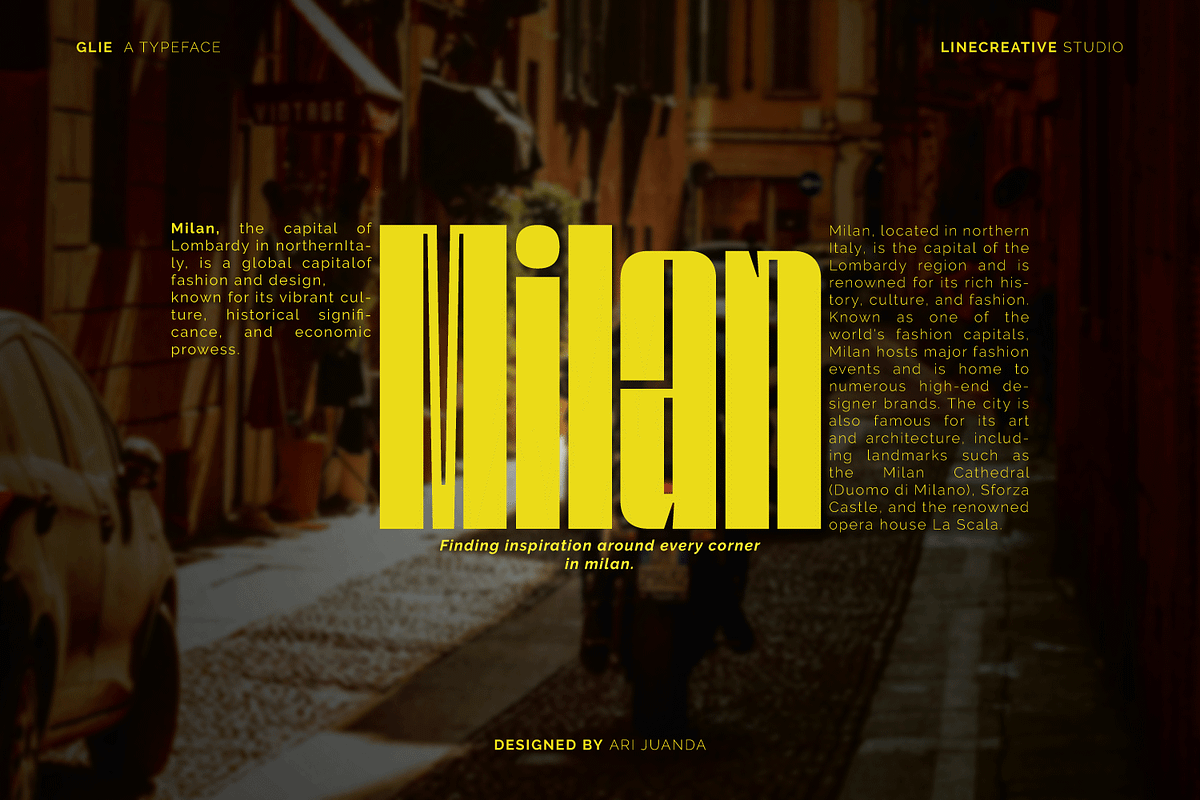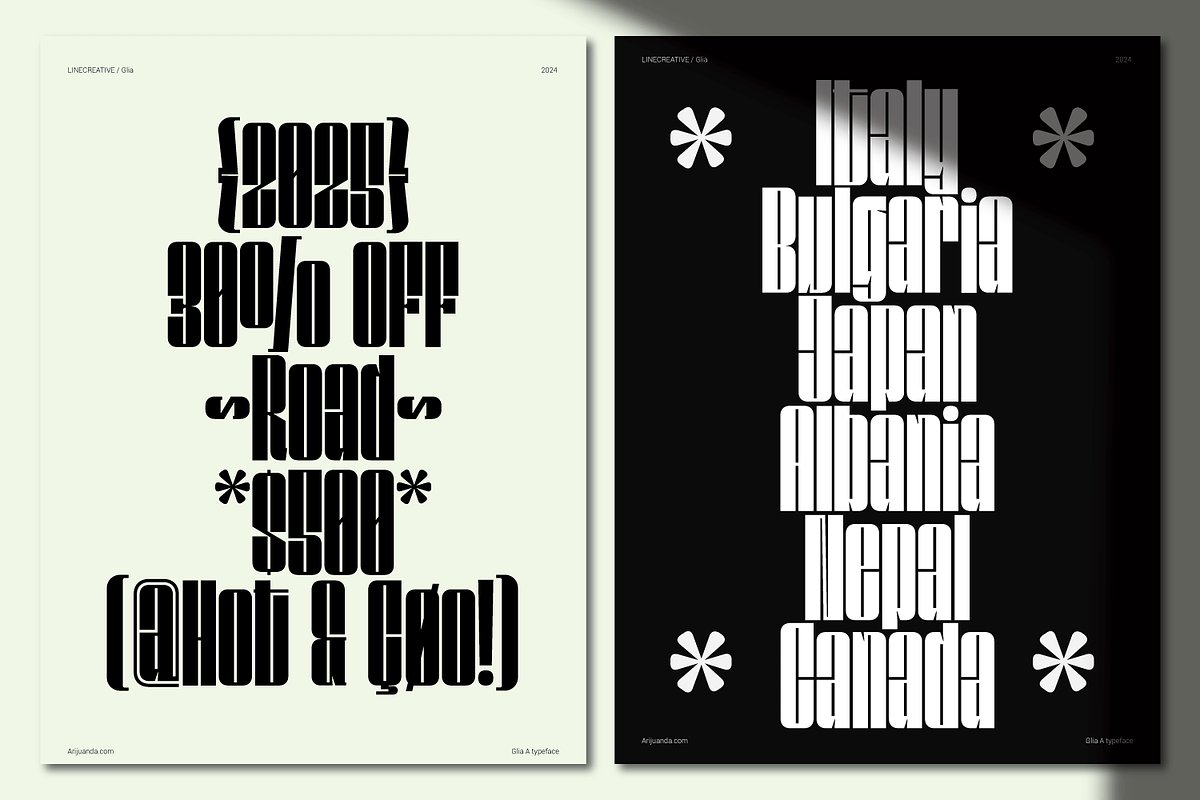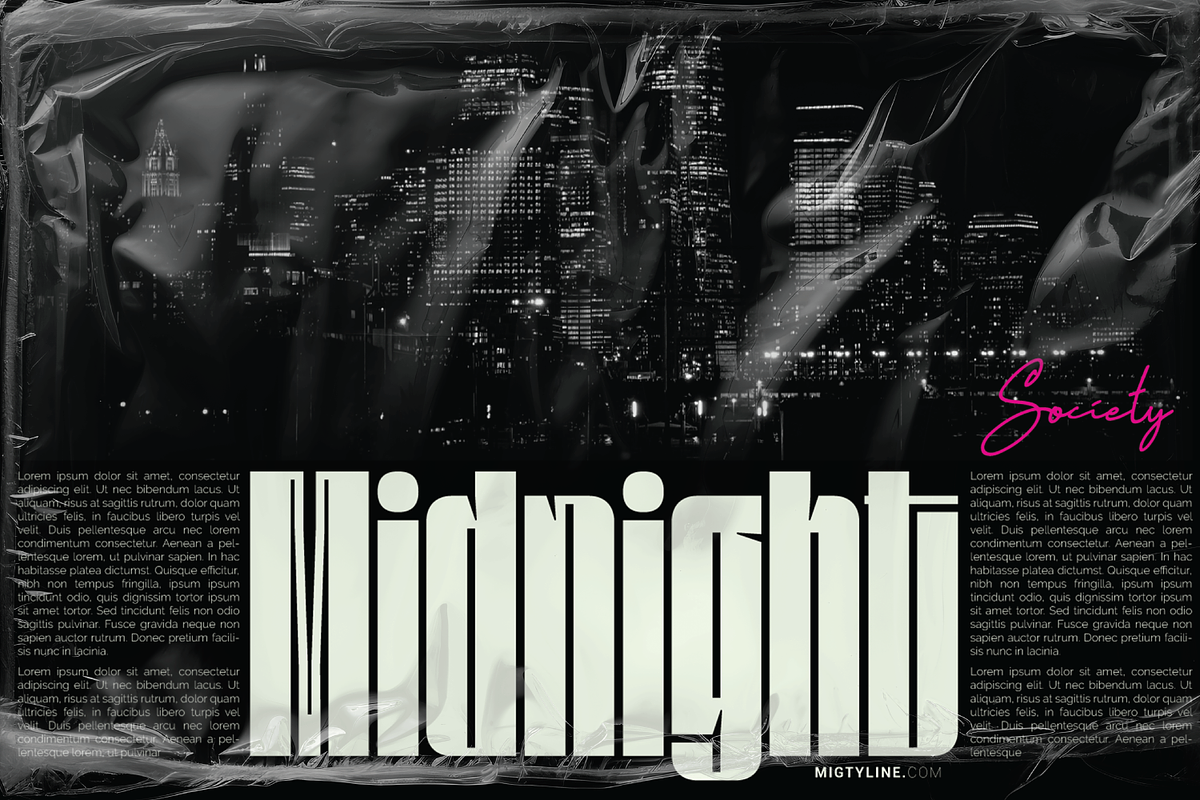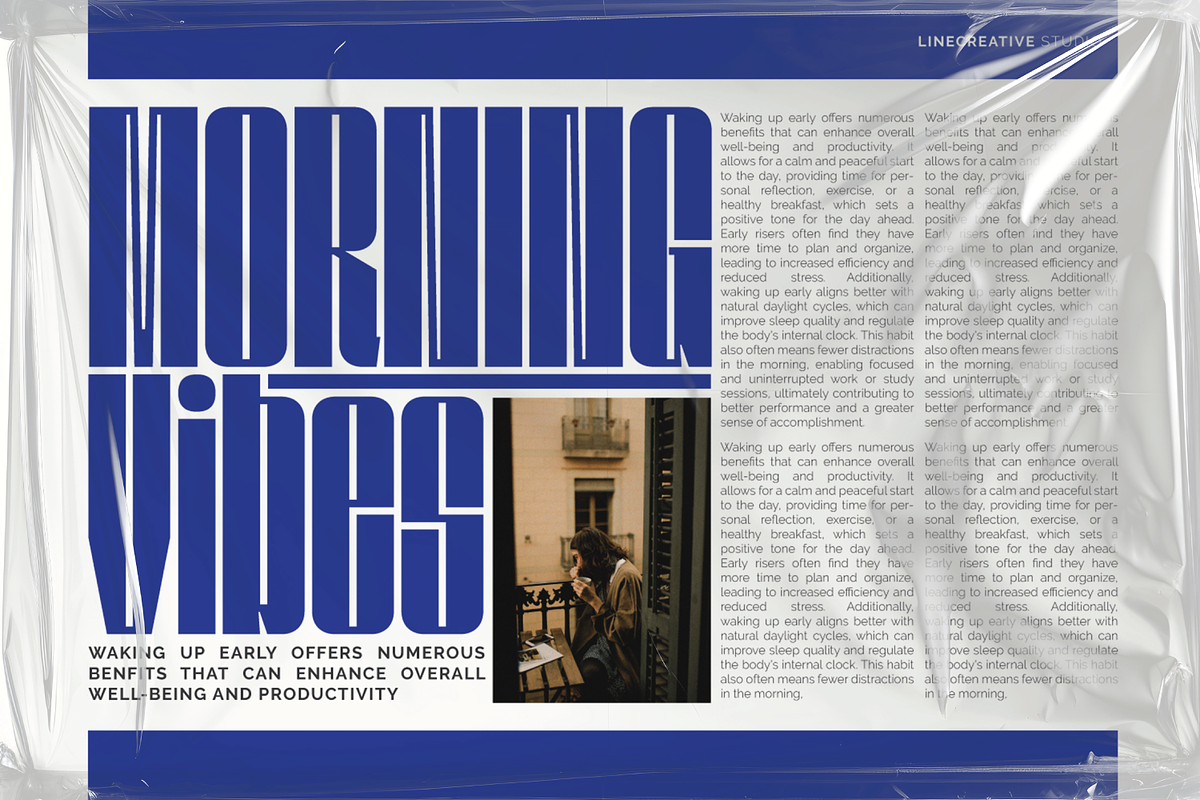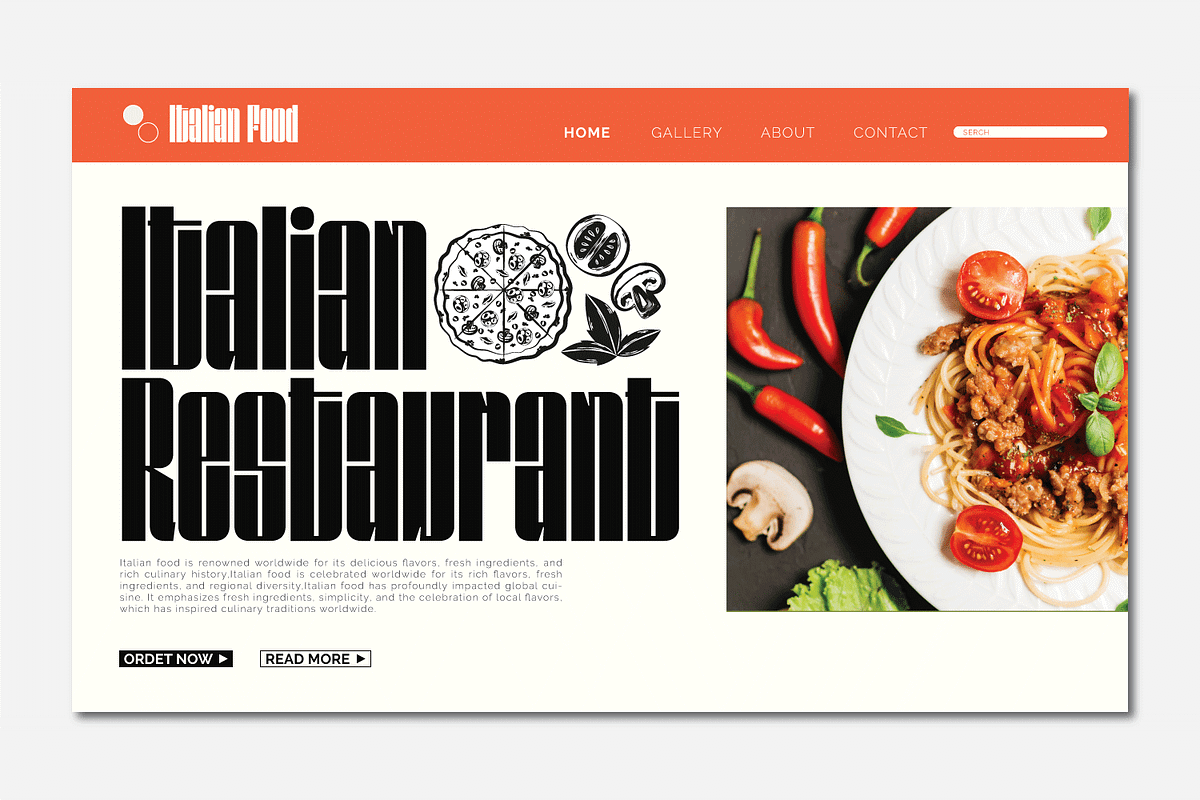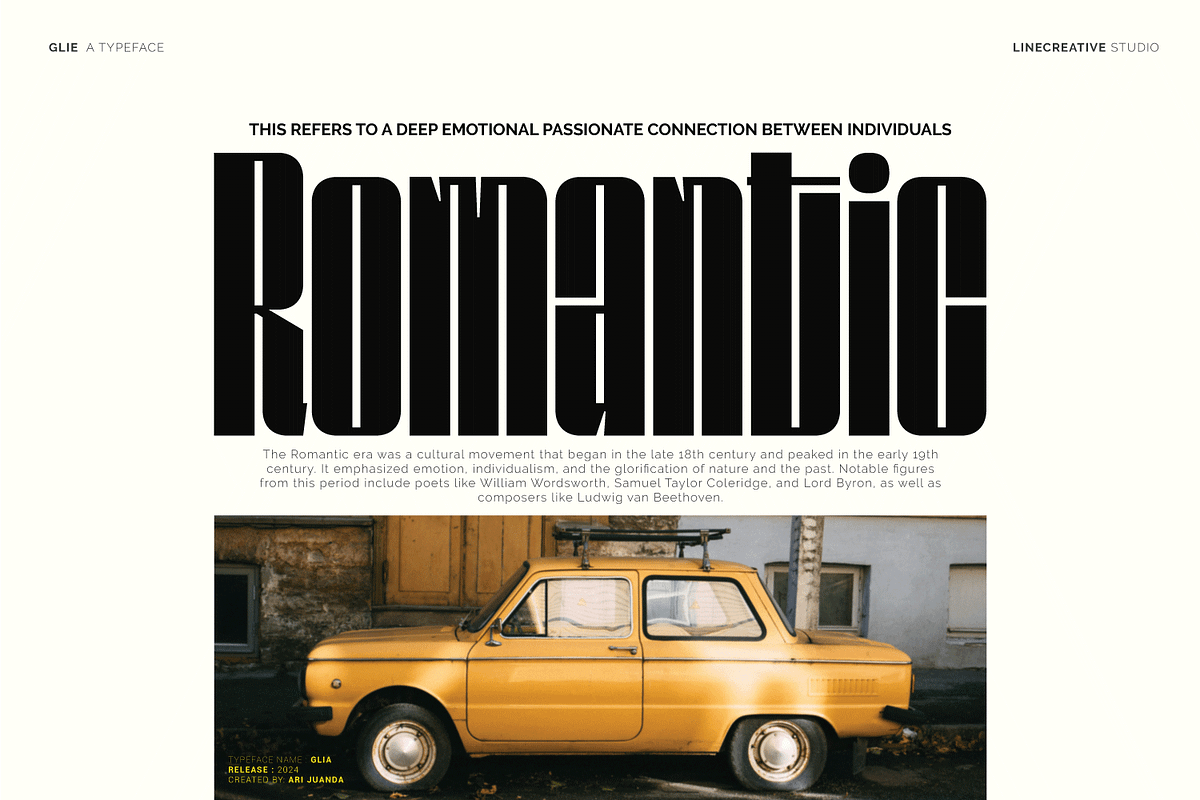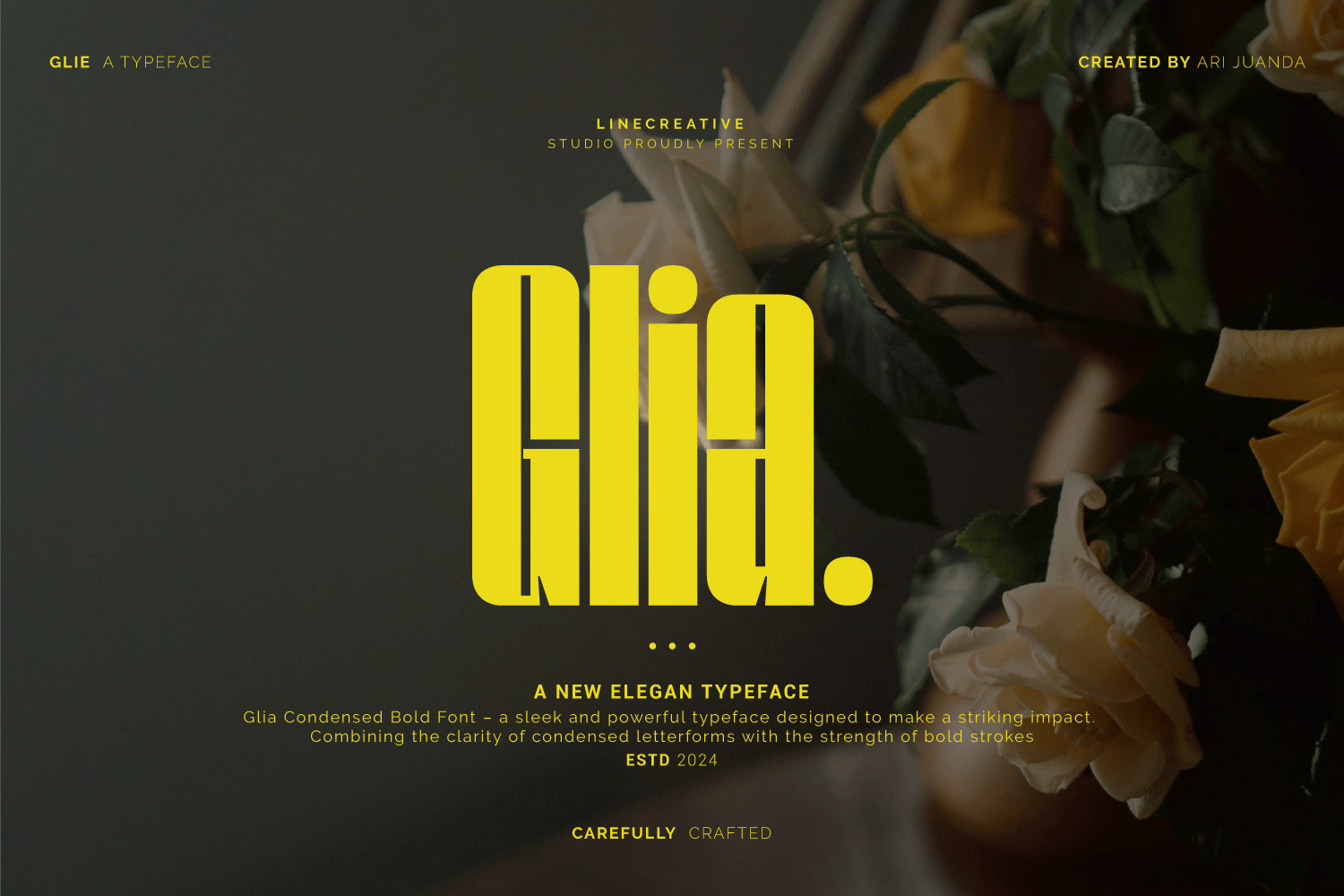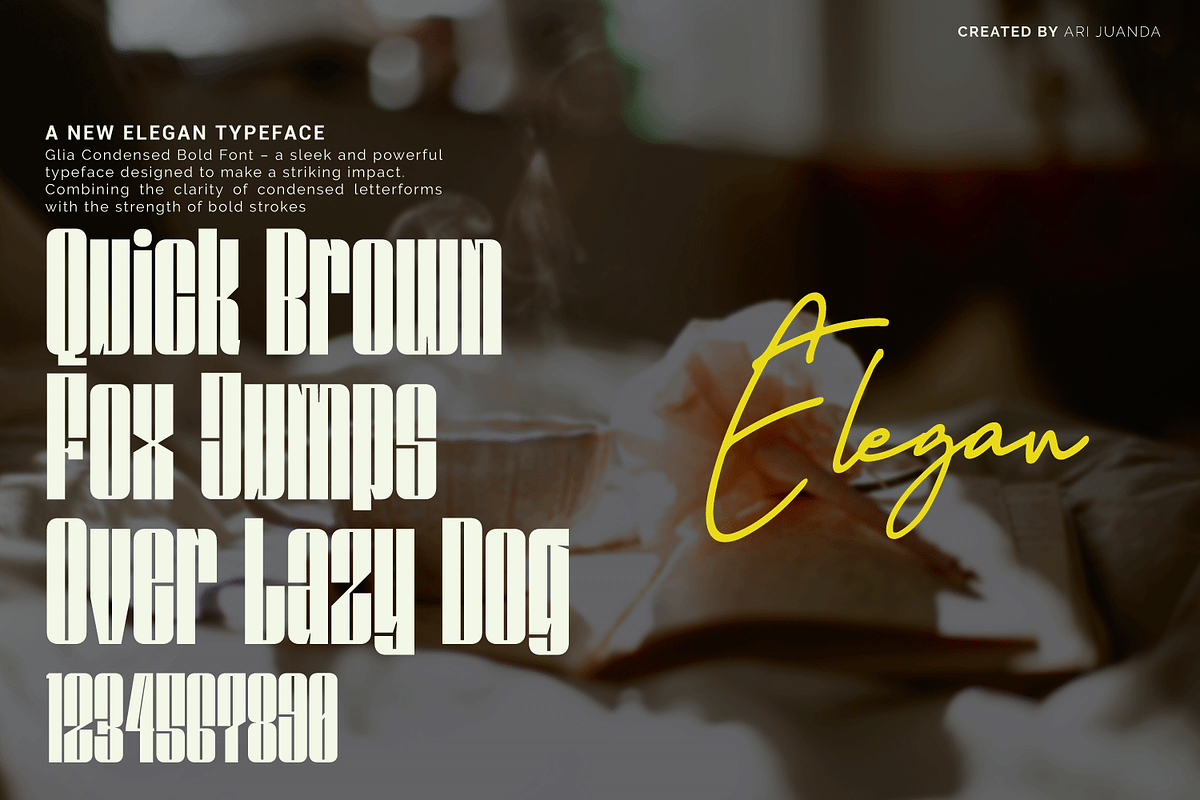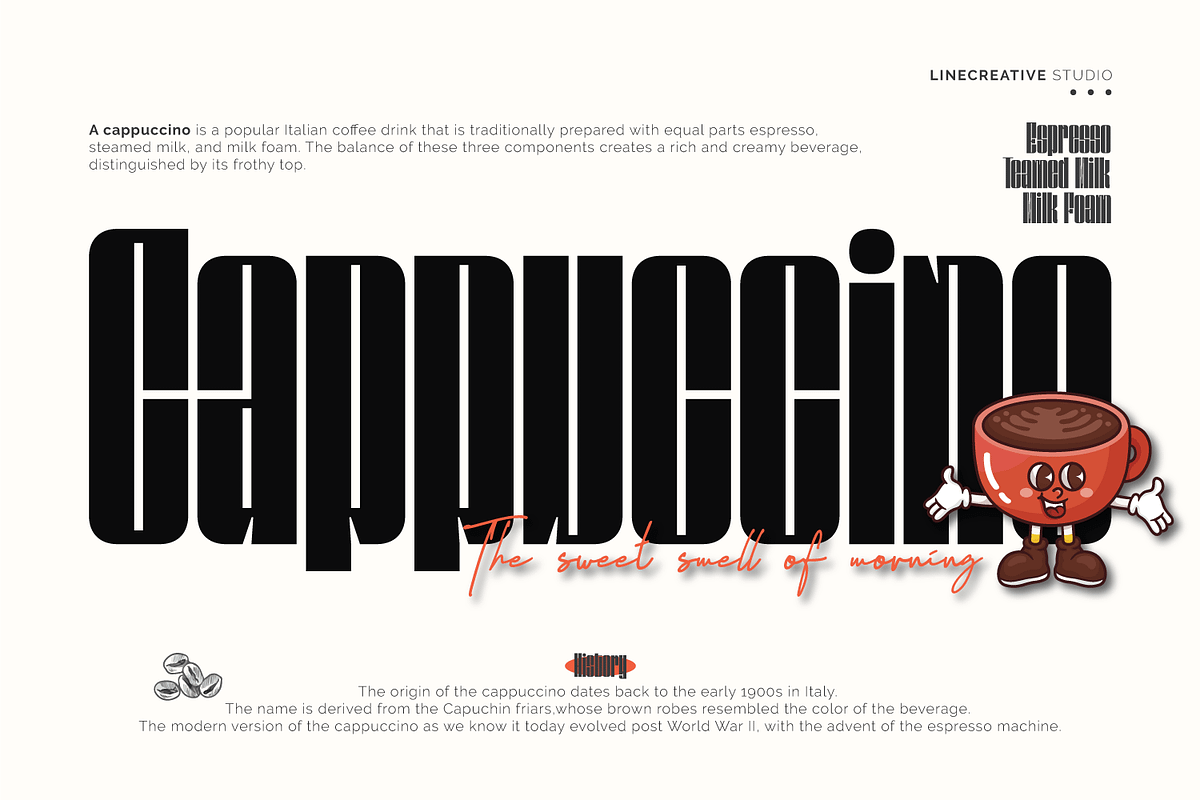
Glia A Typeface
Simplicity can be mesmerizing. Less is more. This is the reason why we wanna offer you the Glia font.Glia Condensed Bold Font – a sleek and powerful typeface designed to make a striking impact. Combining the clarity of condensed letterforms with the strength of bold strokes,It gives the impression of being clean and extremely ellegant.
This font would be perfectly used as the headline, poster, title, other graphic design.
Numbers and Punctuation
Supports Multi linguage (Latin Western Europe)